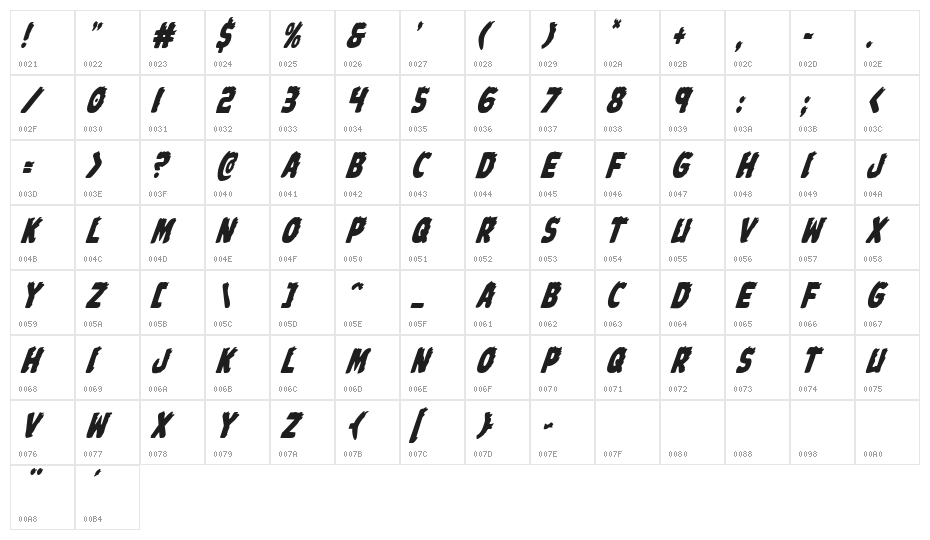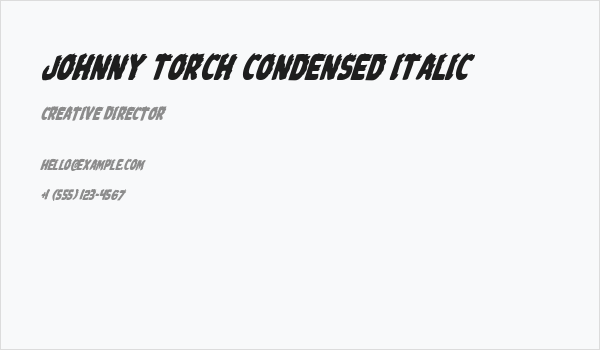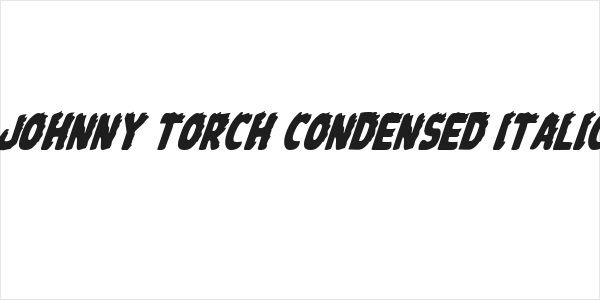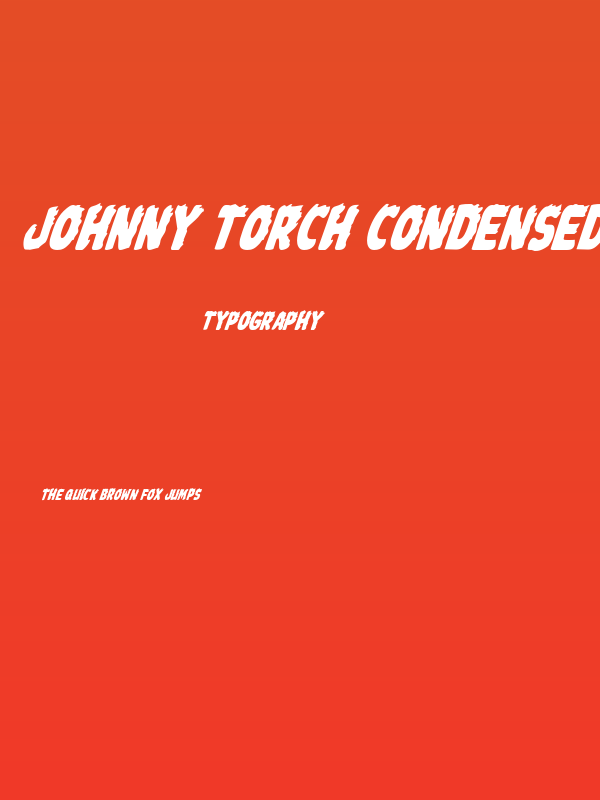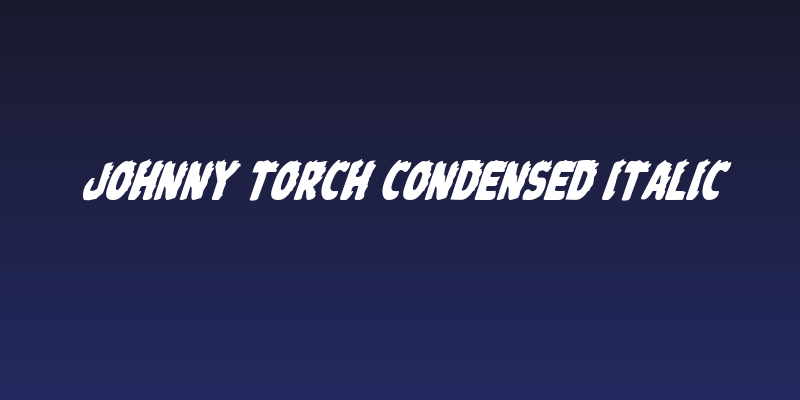
Johnny Torch Condensed Italic Font
Johnny Torch Condensed Italic Description
This font features a bold and dynamic style with a strong italic slant, giving it a sense of movement and energy. The characters are condensed, which makes them appear compact and powerful. The strokes are thick and consistent, providing a high contrast that enhances readability while maintaining a distinctive, edgy appearance. The font's design is reminiscent of action-packed themes, making it suitable for projects that require a bold statement. The uppercase and lowercase letters are well-defined, and the numerals are clear and impactful. Special characters are included, adding versatility to its use.
| Overall Style | Dynamic and Edgy |
| Proposed Projects | Ideal for action-themed posters, video game titles, sports branding, and dynamic advertisements. |